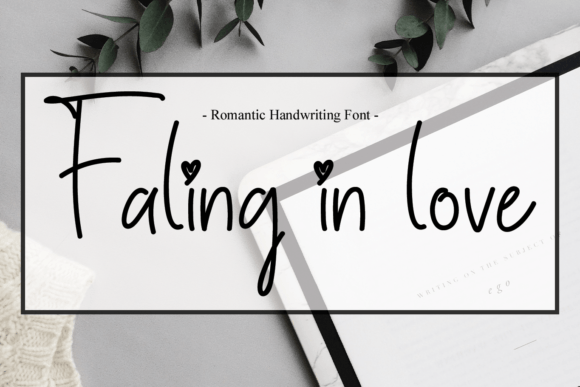
Falling in Love with Design
Do you remember that moment when you first fell in love with design? Maybe it was the first time you saw a beautifully crafted logo, or the way a cleverly worded headline caught your eye. Whatever it was, it sparked something within you, and you knew that you wanted to create something just as amazing. For designers, this feeling is a constant companion, driving us to push the boundaries of creativity and innovation.
That’s why we’re excited to introduce you to the Faling in Love Font, a thin-lettered handwritten font that’s sure to capture your heart. With its contemporary and fresh design, this font is the perfect addition to any project, whether you’re creating a logo, a brochure, or a social media post. Its versatility and charm make it a valuable tool for designers, allowing you to add a personal touch to your work and make it truly stand out.
Falling in Love Font Key Features
- Font Family: Falling in Love Font
- Size: 1,056 glyphs
- Unique Characteristics: Hand-drawn, cursive script with a romantic and whimsical feel; ideal for wedding invitations, love letters, and other sentimental designs
- Font Style: Script, Cursive
Faling in Love Font Review
As a designer, I was excited to dive into the “Faling in Love Font”. On the surface, it seems like a charming and playful script font that could add a touch of whimsy to any design project.
- The font’s organic and handwritten feel is a great addition to any design that needs a personal touch.
- The font is highly legible, even at smaller sizes, making it perfect for body text or display headings.
- The font’s unique character set includes a range of fun and quirky glyphs, making it perfect for creative projects.
- The font’s irregularities can sometimes make it difficult to read, particularly for those with vision impairments.
- The font’s lack of consistency in its stroke widths and x-height can make it challenging to use in certain design contexts.
- The font’s font size may not be as scalable as other fonts, which could impact its use in large or complex designs.
Overall, I would say that the “Faling in Love Font” is a fun and creative addition to any designer’s toolkit. While it may have some limitations, its unique personality and charm make it a great choice for projects that need a touch of whimsy and personality.
For the most effective use of Falling in Love Font, use it in contexts that evoke romance, love, and passion. Some common use cases include:
– Romantic greeting cards
– Love-themed social media posts
– Valentine’s Day decorations
Alternatives to Faling in Love Font for Designers
The Great Vibes Font is a beautiful, elegant script font that is perfect for creating a romantic and whimsical atmosphere. It is ideal for wedding invitations, love letters, and other sentimental designs. Great Vibes Font is more delicate and refined compared to Faling in Love Font, making it a great choice for those who want a softer, more feminine look.
The Carolyna Pro Font is a modern, luxurious script font that exudes sophistication and elegance. It is perfect for high-end designs, such as luxury branding, weddings, and special occasions. Compared to Faling in Love Font, Carolyna Pro Font is more polished and refined, making it a great choice for designers who want to create a high-end look.
The Alex Brush Font is a beautiful, handwritten script font that is perfect for creating a personal and emotional connection with the audience. It is ideal for designs that require a touch of warmth and personality, such as social media posts, blog articles, and personal branding. Alex Brush Font is more casual and relaxed compared to Faling in Love Font, making it a great choice for designers who want to create a friendly and approachable atmosphere.